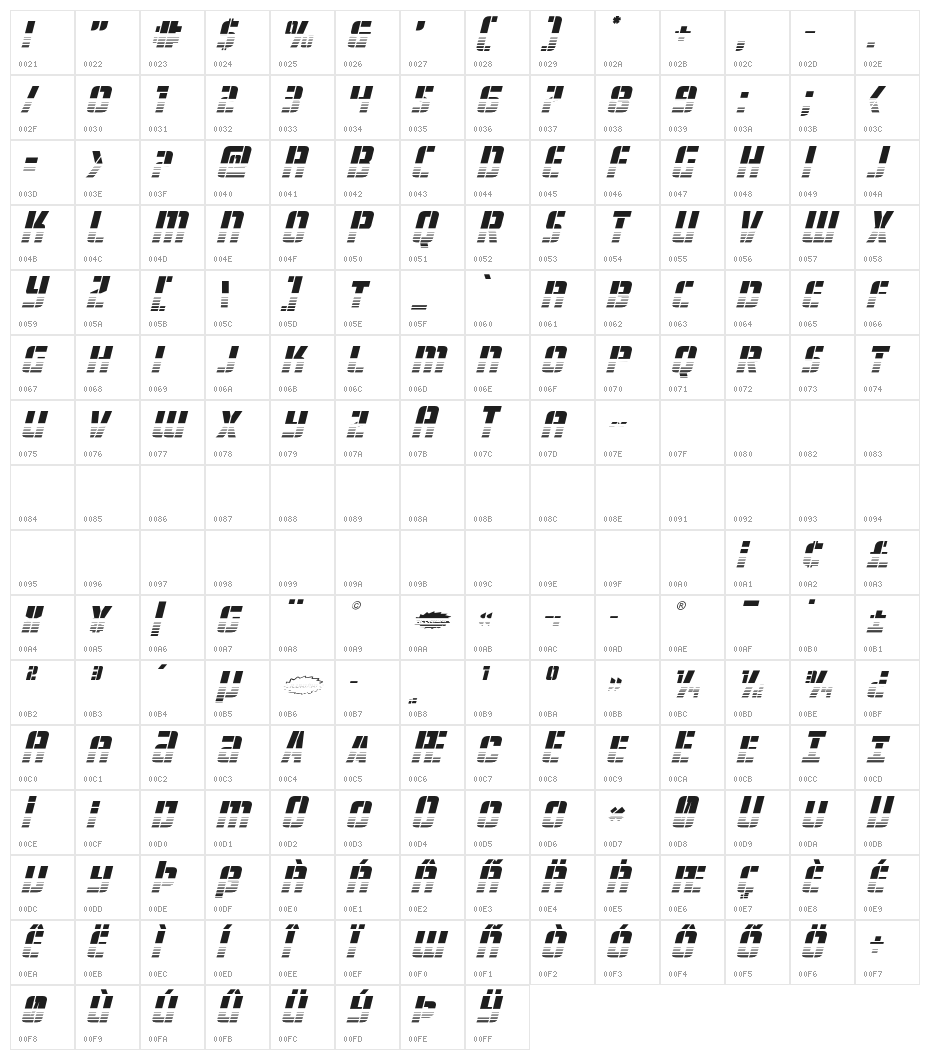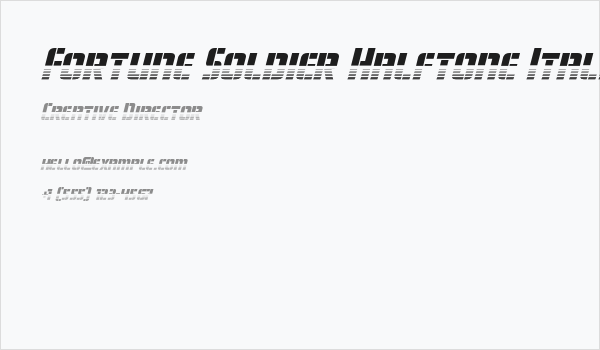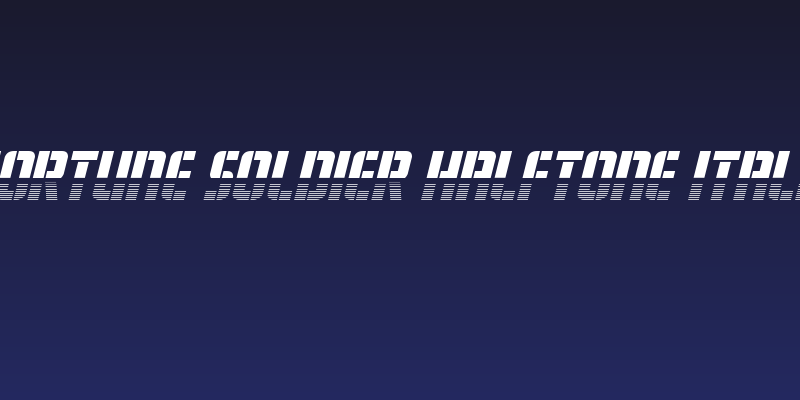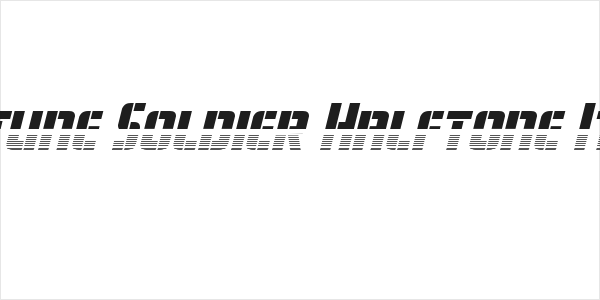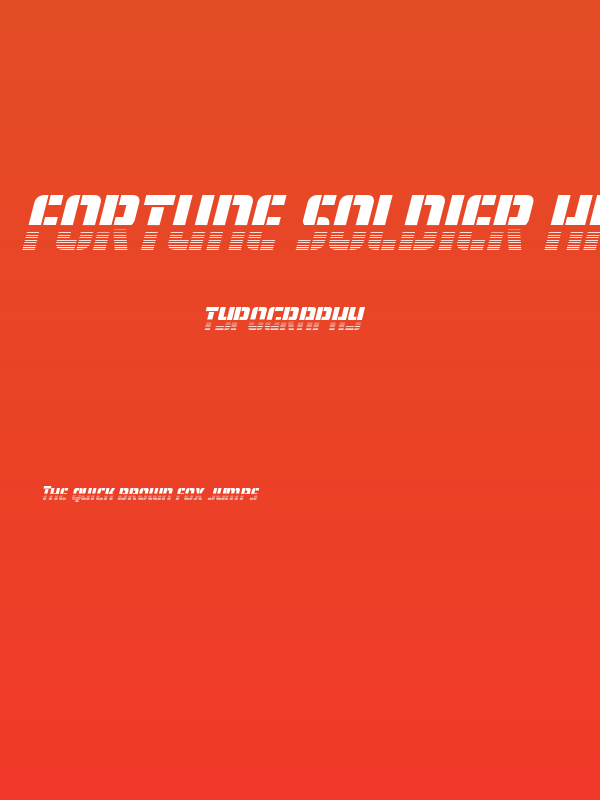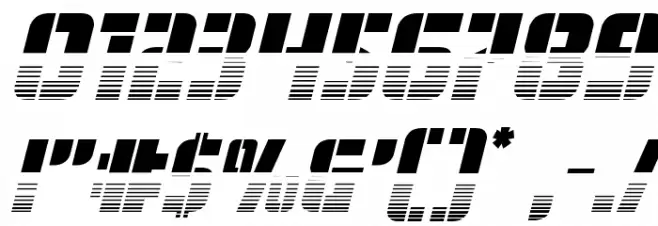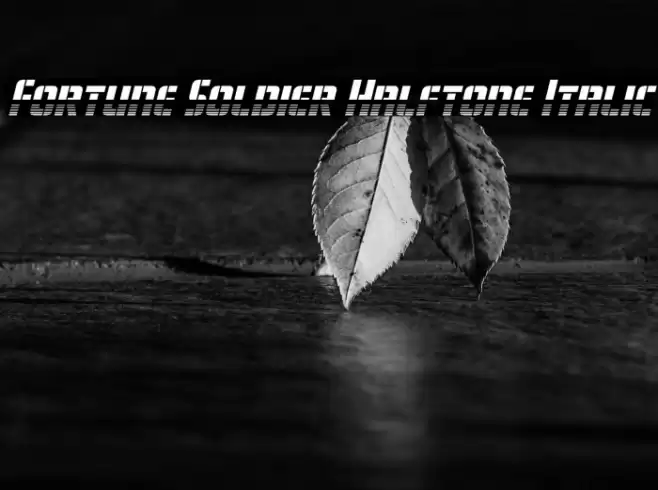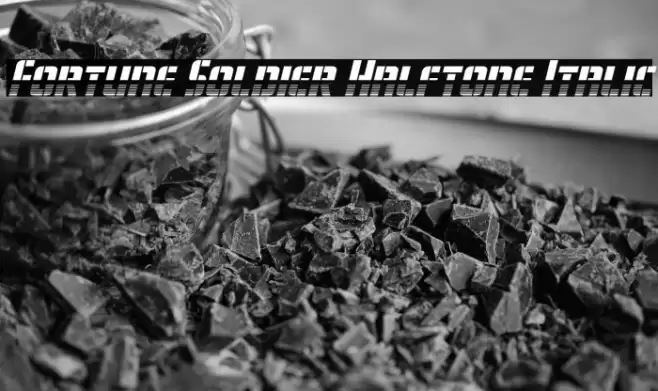
Fortune Soldier Halftone Italic Font
This font features a bold, italicized style with a distinctive halftone pattern that gives it a dynamic and modern appearance. The characters are designed with a slanted orientation, enhancing the sense of movement and energy. The halftone effect is achieved through horizontal lines that create a gradient-like appearance, adding depth and texture to the letters. This font is particularly eye-catching and suitable for projects that require a strong visual impact. The uppercase and lowercase letters maintain consistency in style, while the numbers and special characters are designed to complement the overall aesthetic.
| Proposed Projects | Ideal for posters, branding, sports-related designs, and modern advertising. |